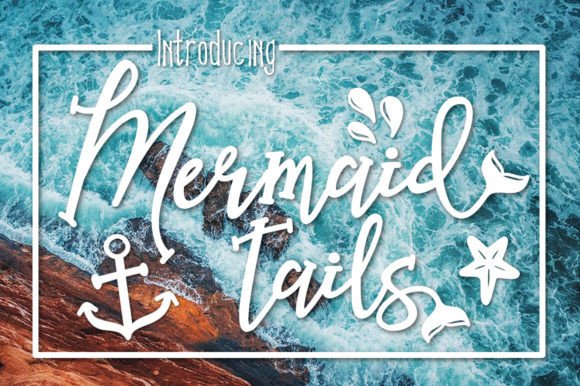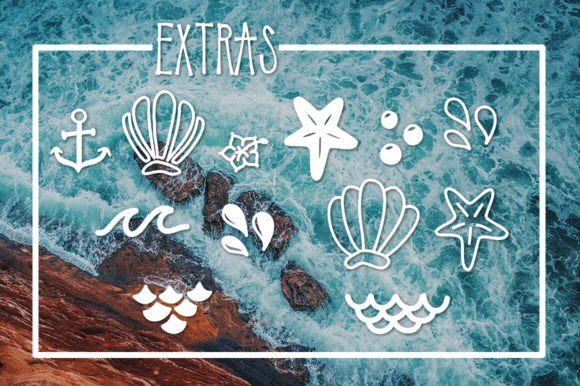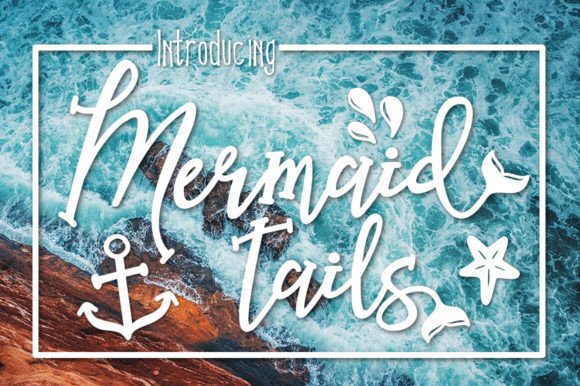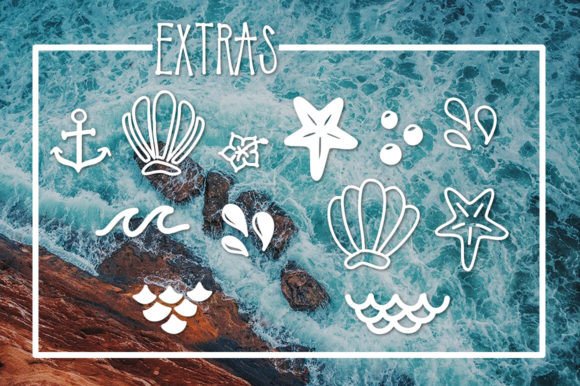
Mermaid Tails Font
About the Mermaid Tails Font
The Mermaid Tails Font offers a perfect balance of form and function for your design needs. Dive into creativity with Mermaid Tails, a whimsical and playful font that captures the magic of the ocean! With its flowing script and charming extras like seashells, waves, and anchors, this font is perfect for beach-themed projects, summer invitations, and designs inspired by the sea. Whether you’re creating for a seaside event, crafting, or adding a splash of mermaid magic to your designs, Mermaid Tails brings a touch of the ocean to every project. Includes a variety of nautical elements for added creative flair!